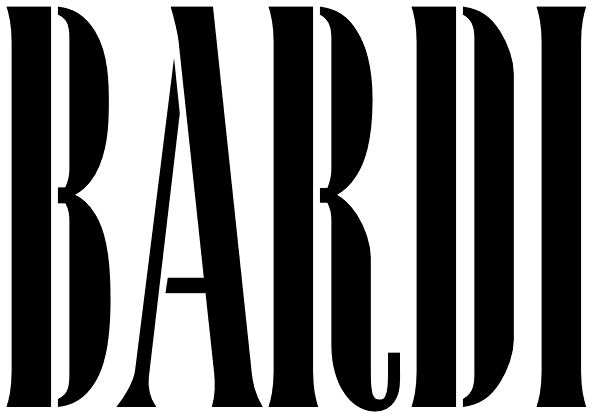
Bardi
An original typeface designed for ParaType in 2004 by Armenian designer Manvel Shmavonyan. Based on the lettering created in 1970s by outstanding Armenian type designer Henrik Mnatsakanyan (1923-2001) of the same name. In Armenian 'Bardi' means...